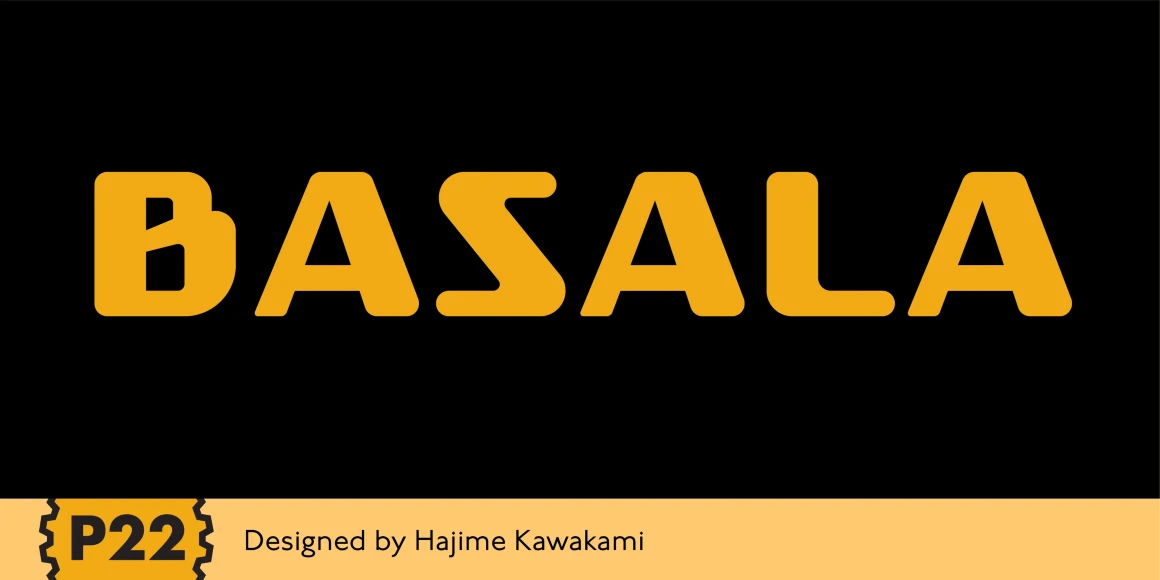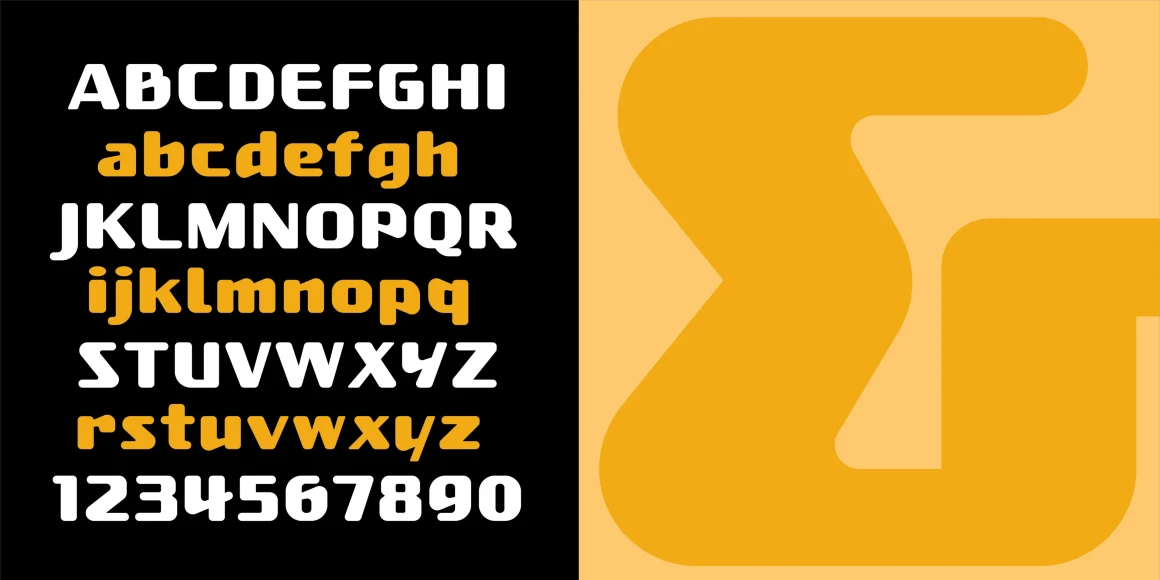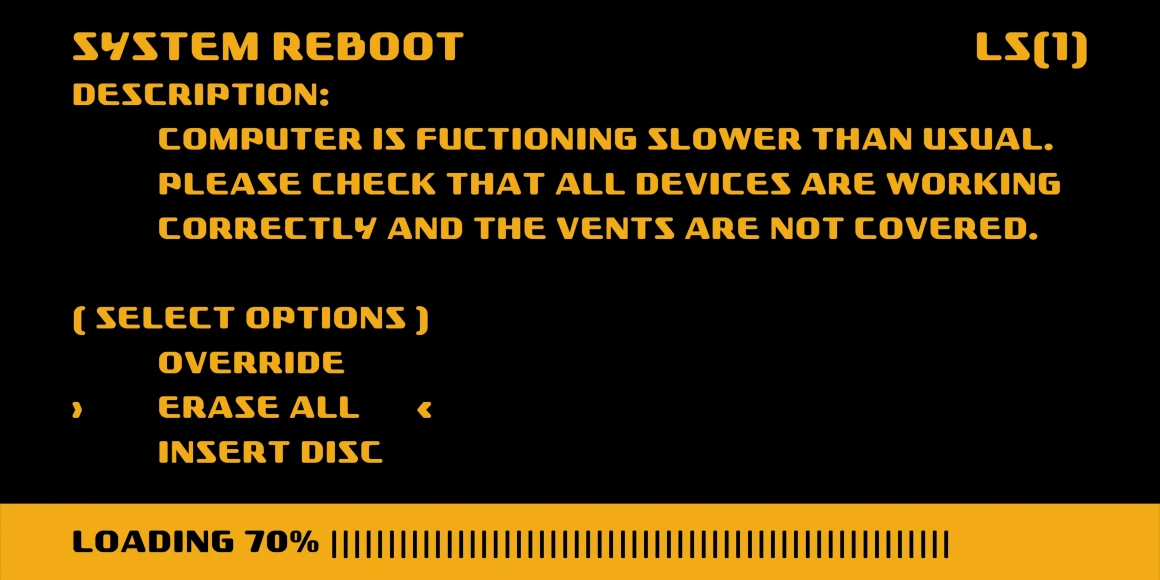
Basala
P22 Basala was created using straight horizontal and vertical lines, but with large rounded corners to create an unconventional softness for a bold face. The naming of the font reflects this juxtaposition: Basara= Basala= (in Japanese) free and unrestrained, unconventional.
Designed by Hajime Kawakami